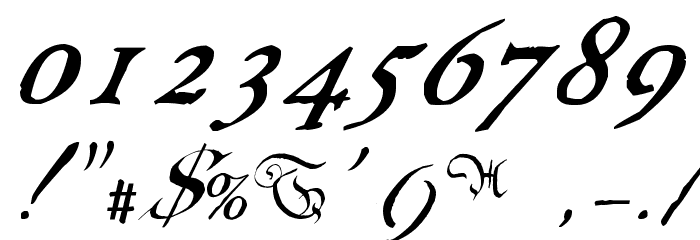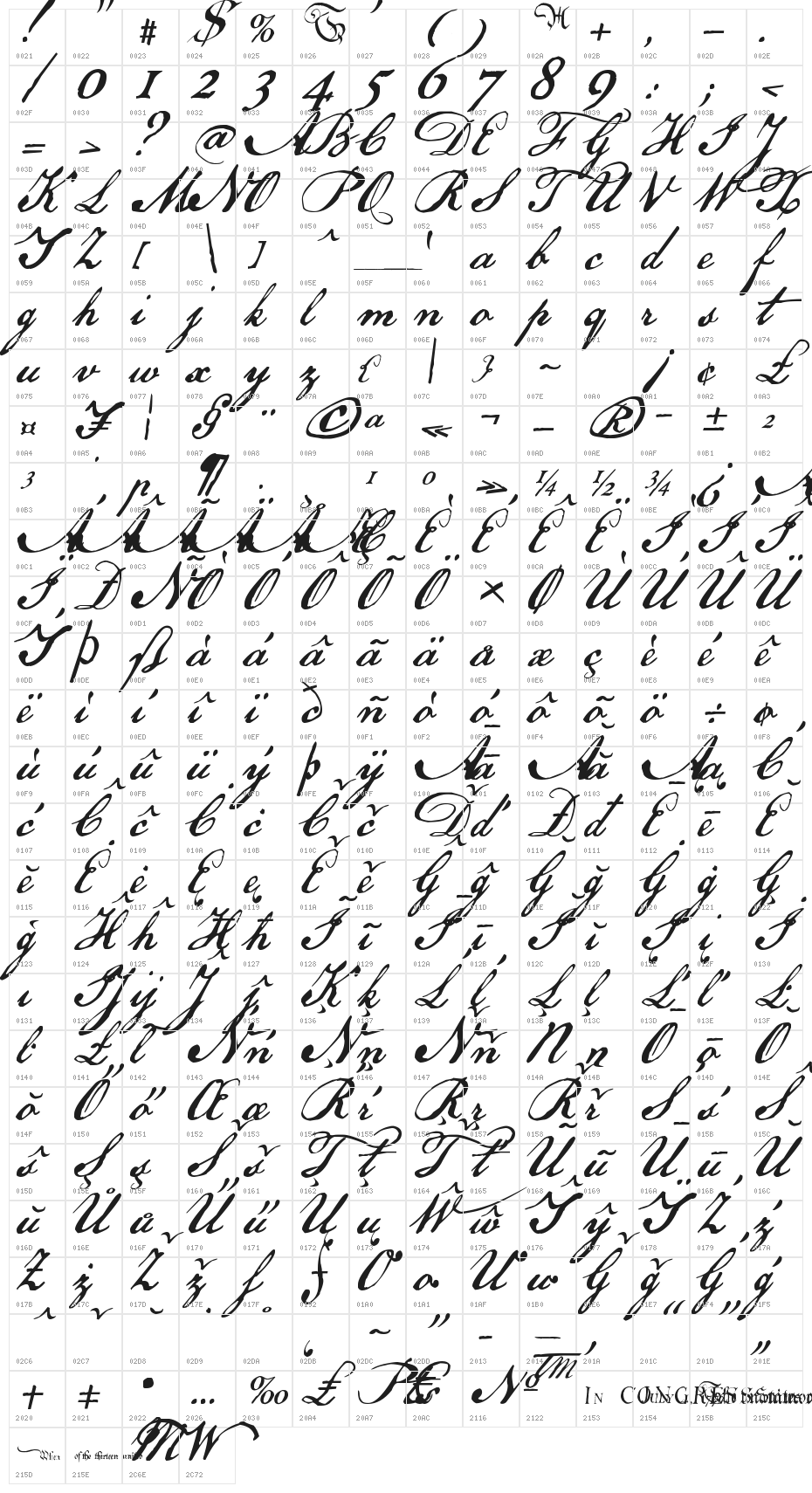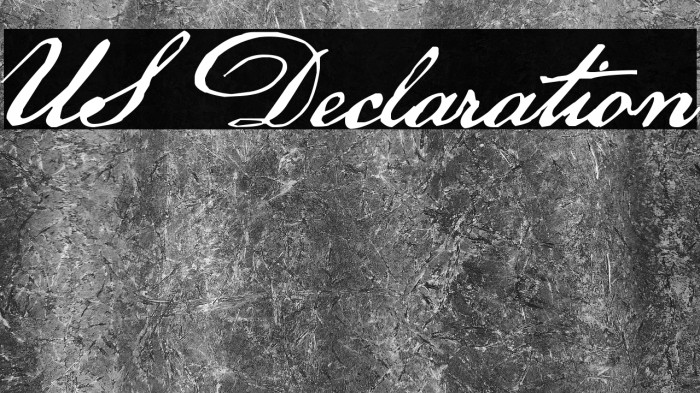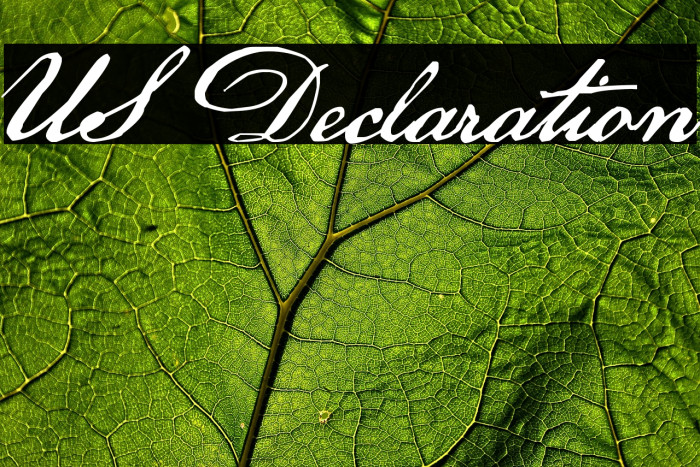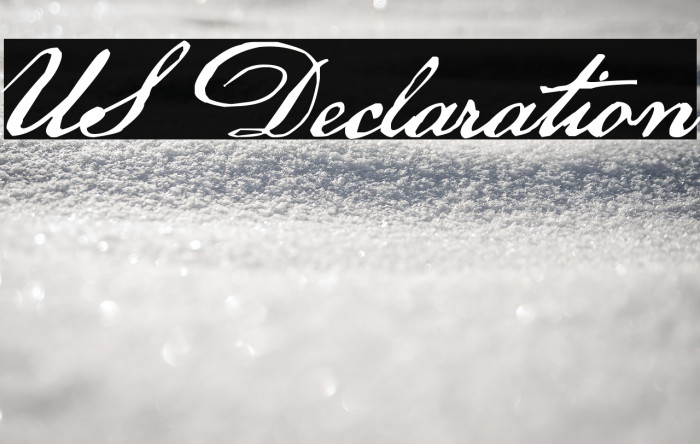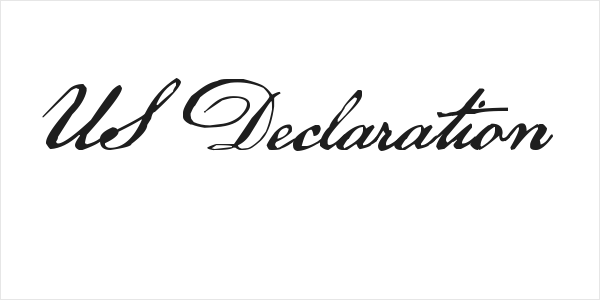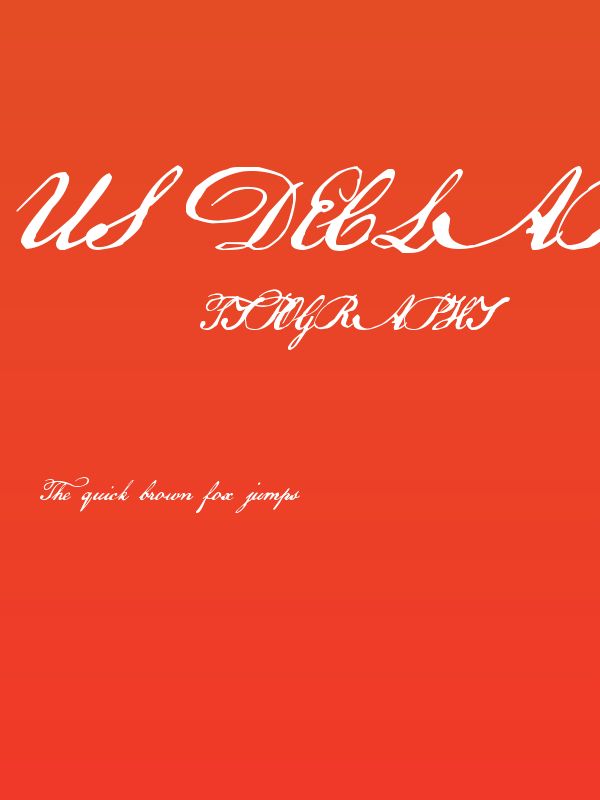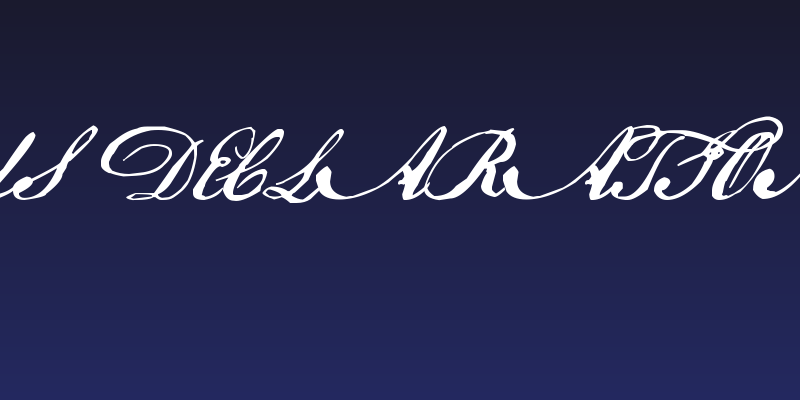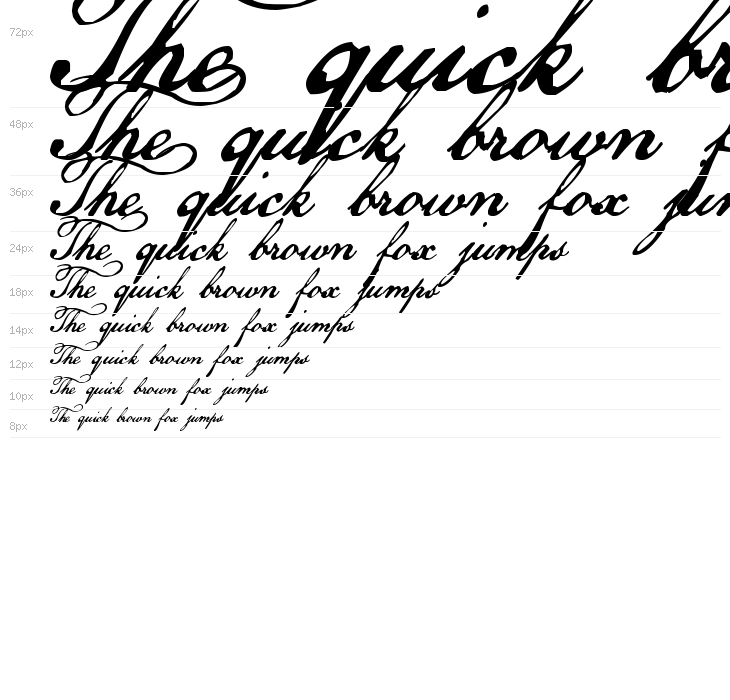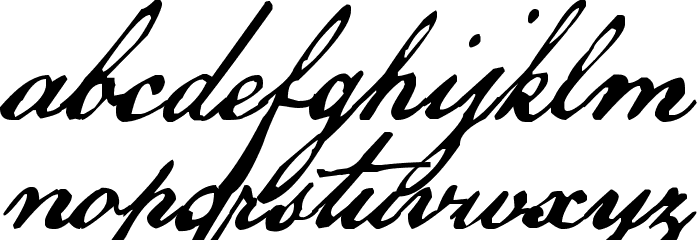
US Declaration Font
US Declaration Description
This elegant script font features a flowing, cursive style reminiscent of historical documents. The uppercase letters are ornate, with intricate loops and flourishes that add a sense of sophistication and formality. The lowercase letters maintain a consistent slant and are connected, enhancing the fluidity of the text. Numbers and special characters are designed with the same attention to detail, ensuring a cohesive appearance across all elements. The font's high contrast between thick and thin strokes adds to its dramatic and stylish look, making it ideal for projects that require a touch of elegance and tradition.
| Use Case | Headlines, Invitations, Certificates |
| Proposed Projects | Ideal for wedding invitations, formal event programs, certificates, and historical document reproductions. |